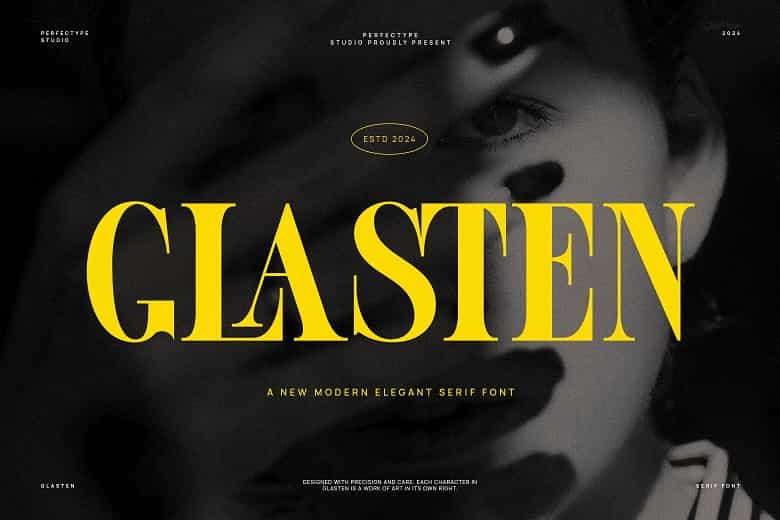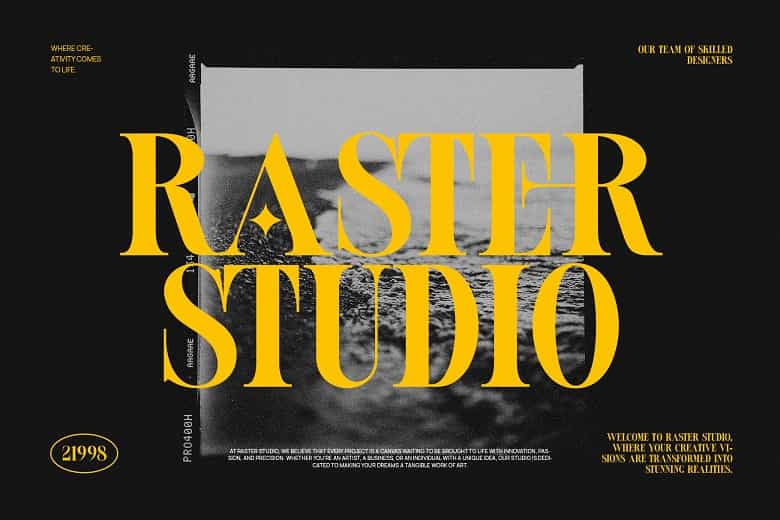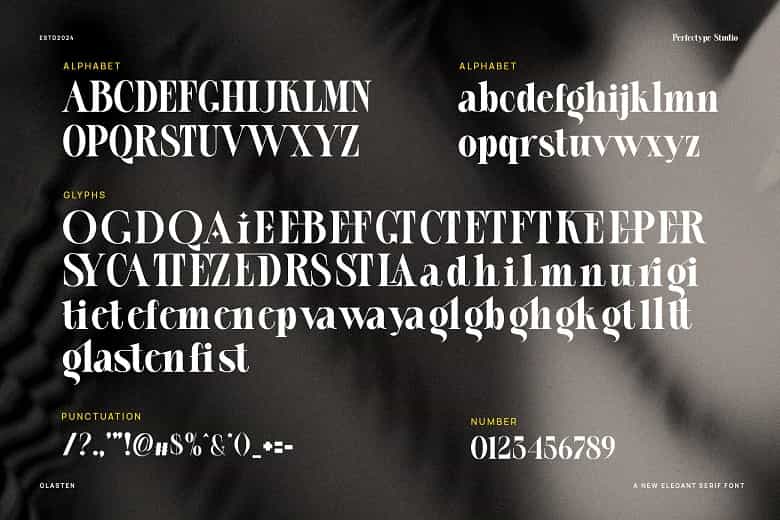
The typeface is Glasten which is a classy and contemporary serif font. This one is recommended for Magazine and Newspaper layouts. Glasten has good readability and a simple, yet elegant style, so it is ideal for headlines, subheadings, and body text in articles.